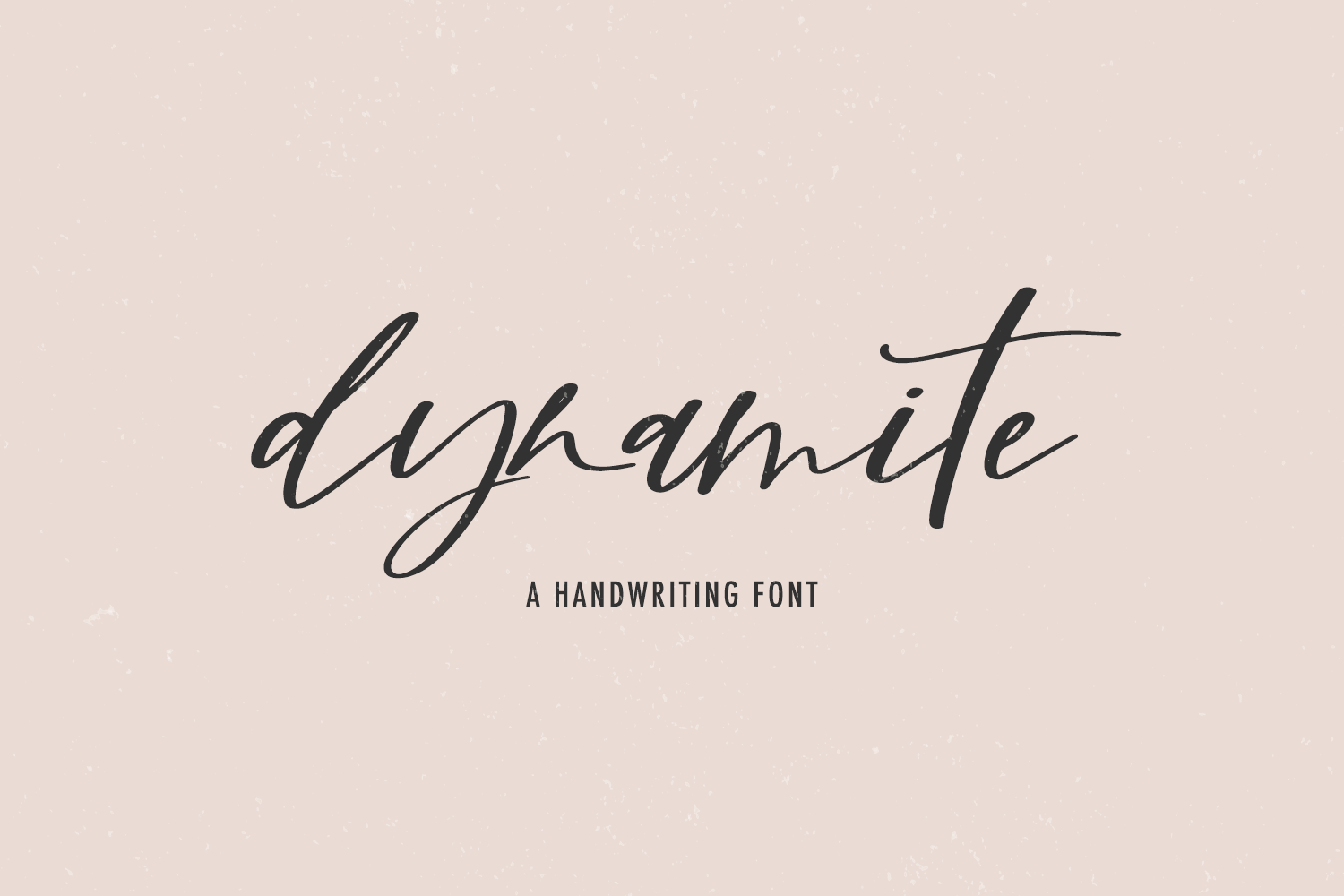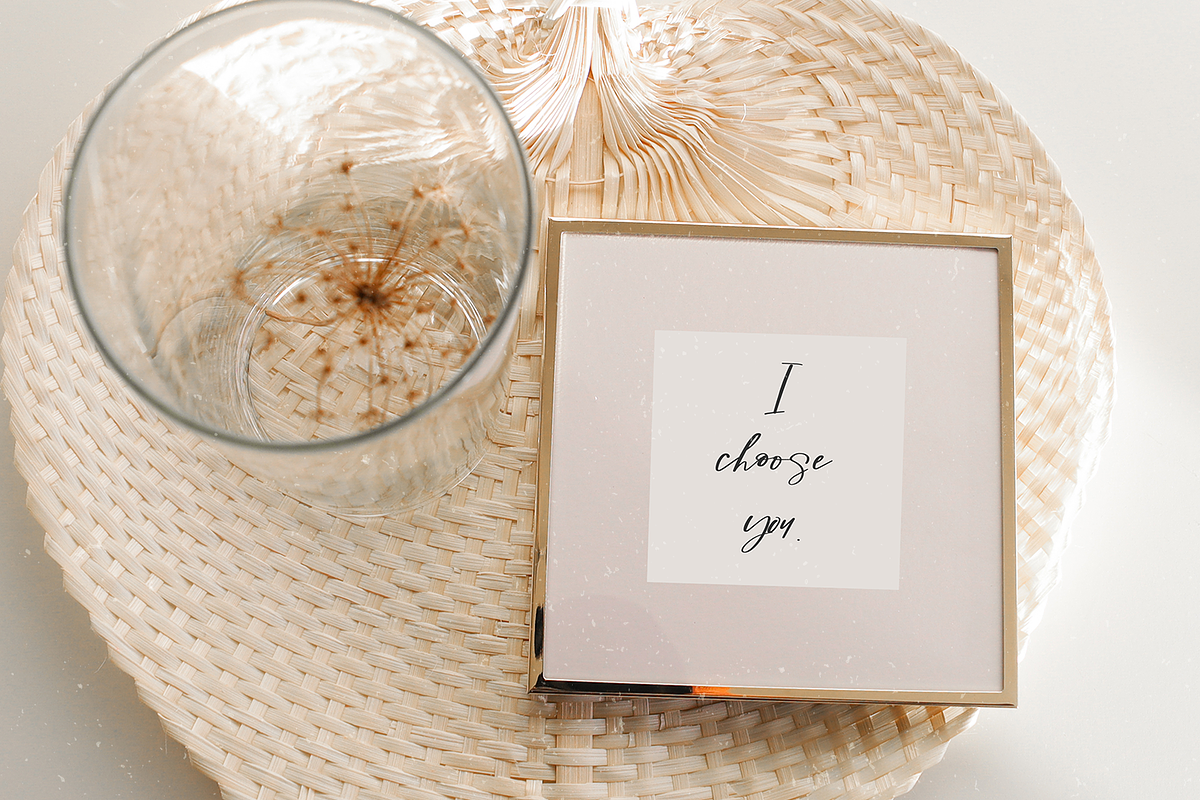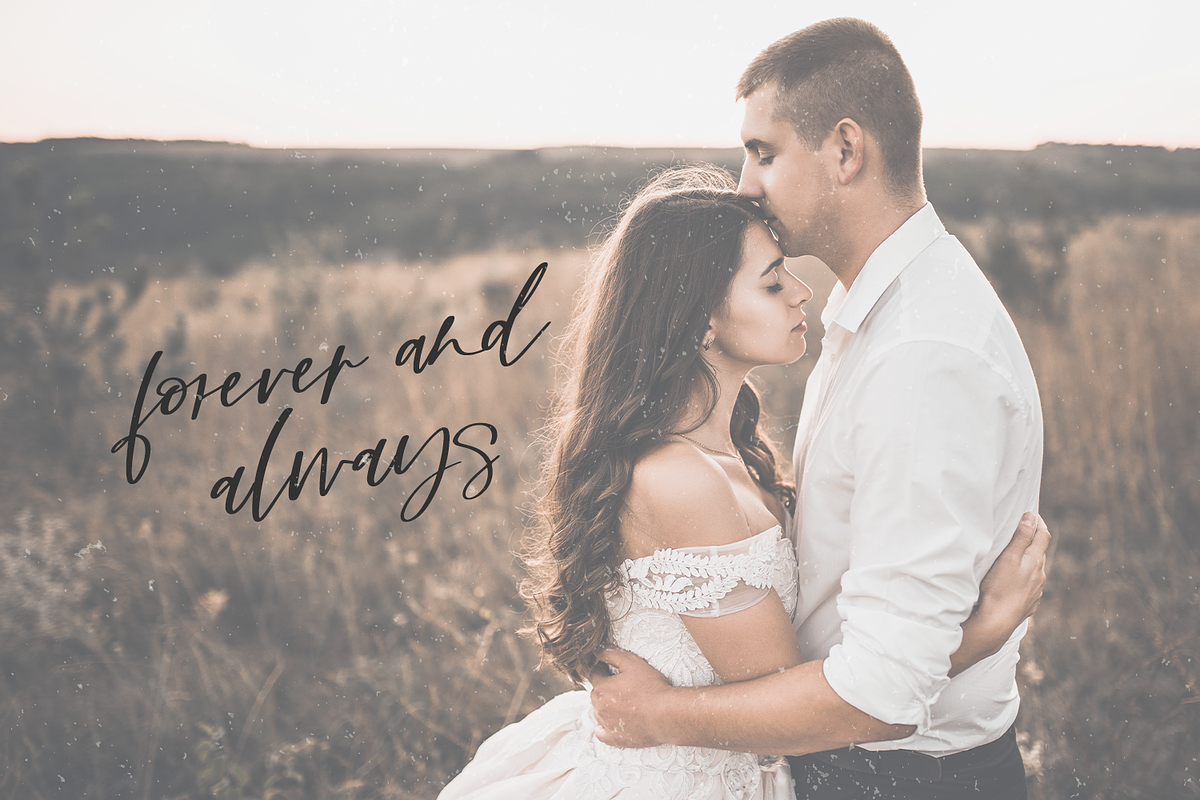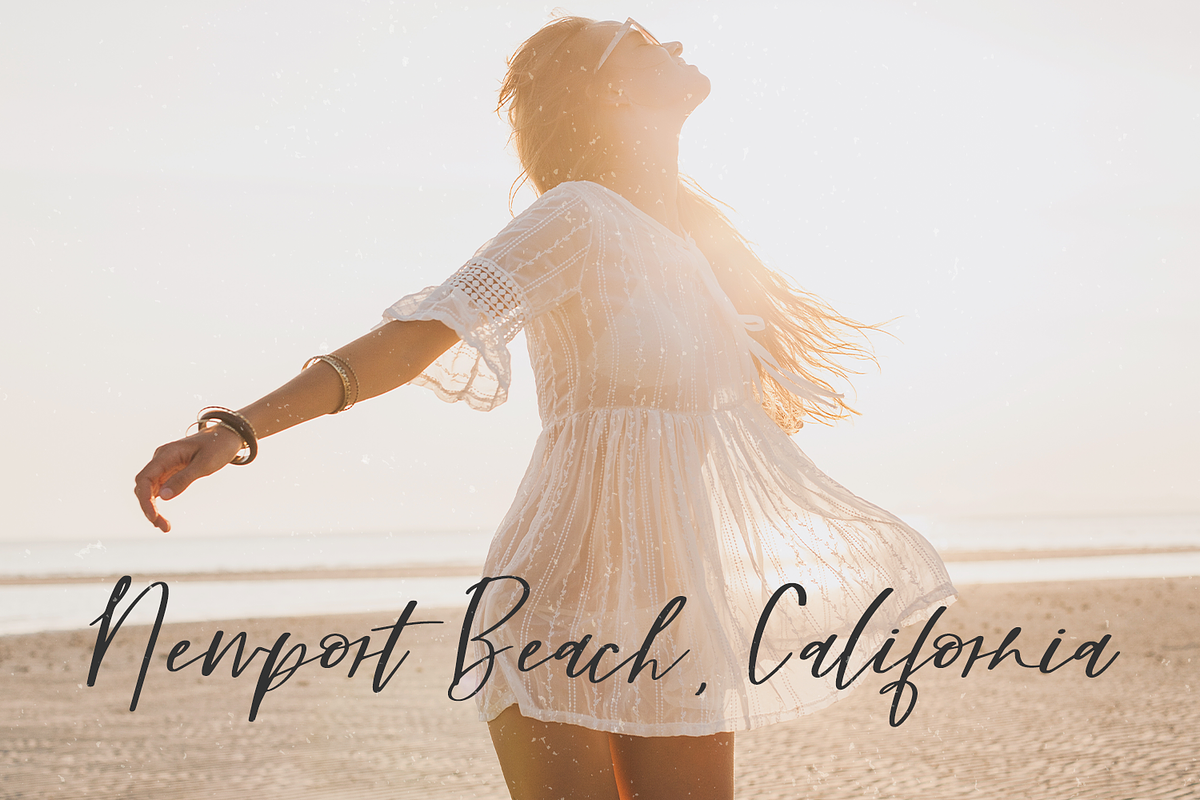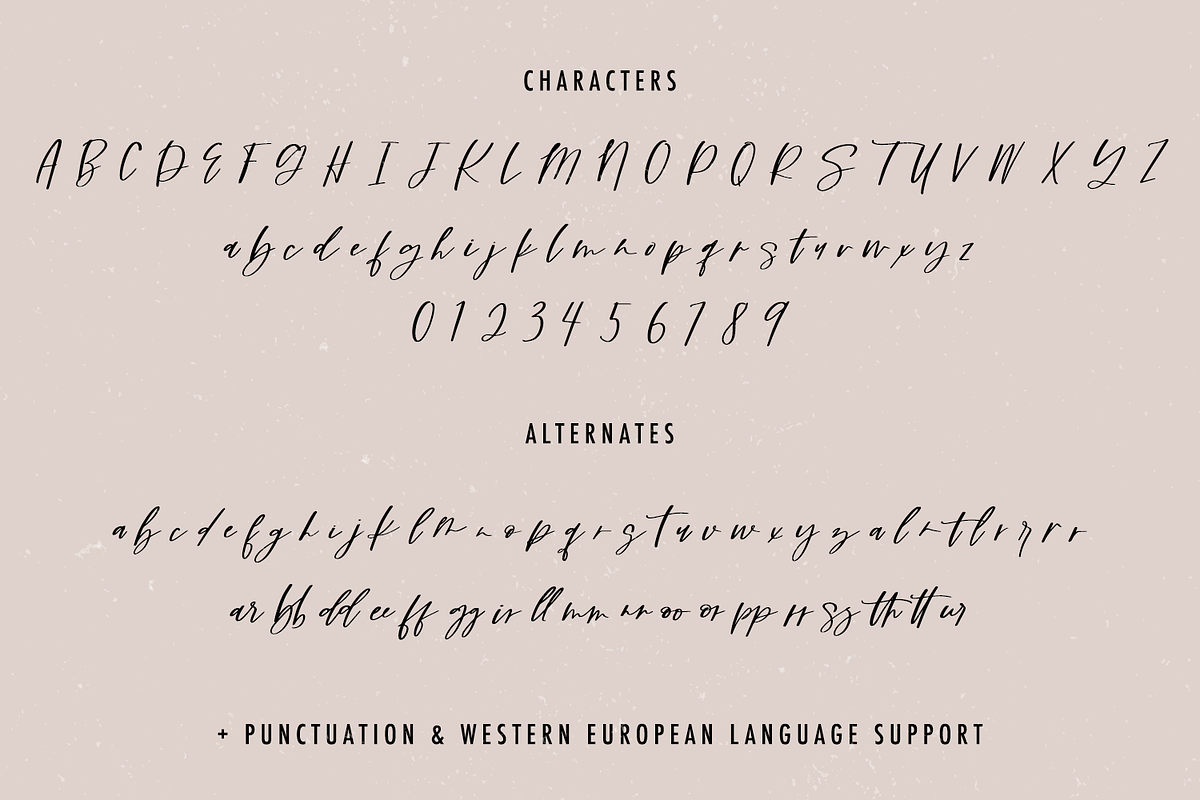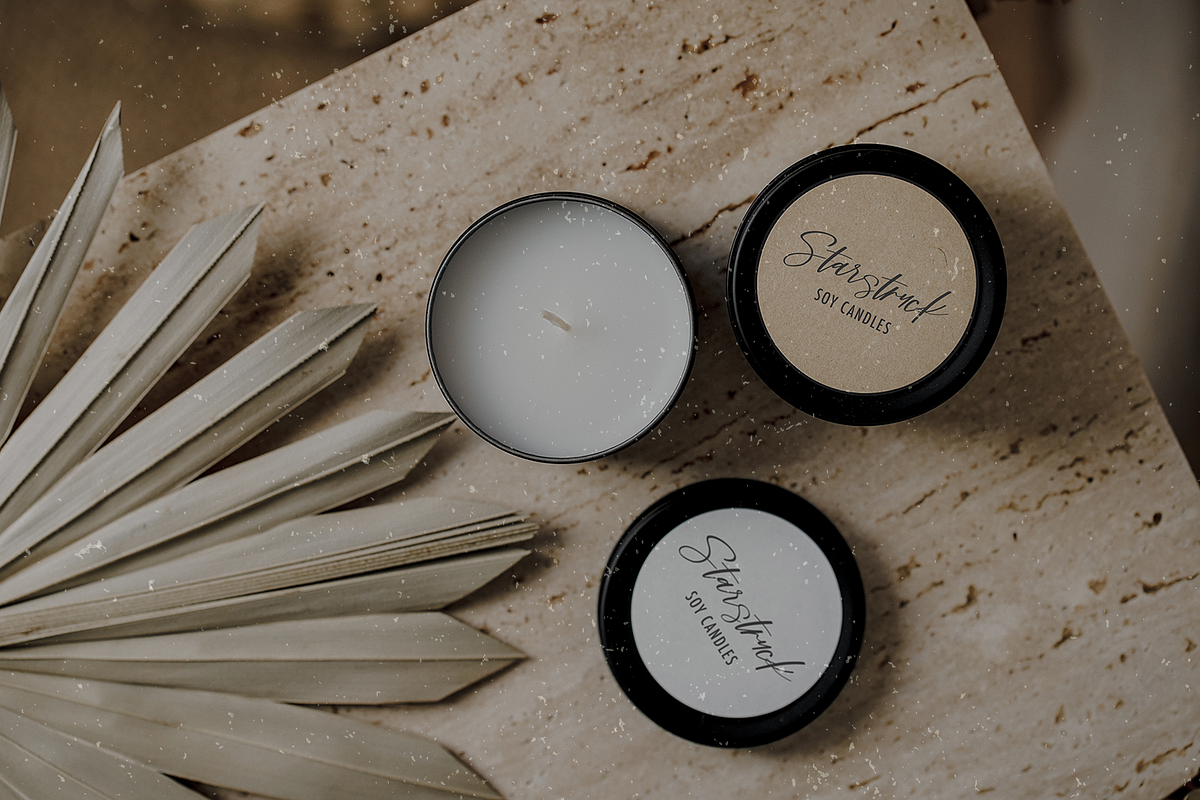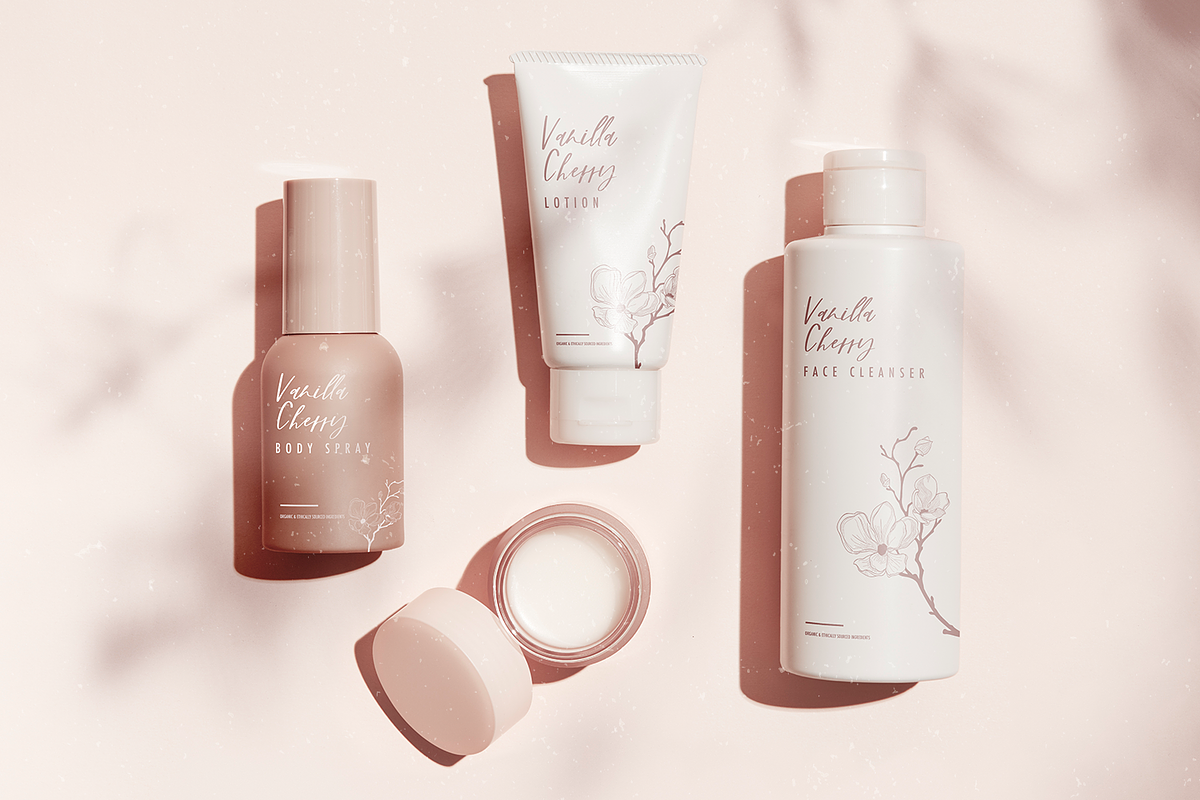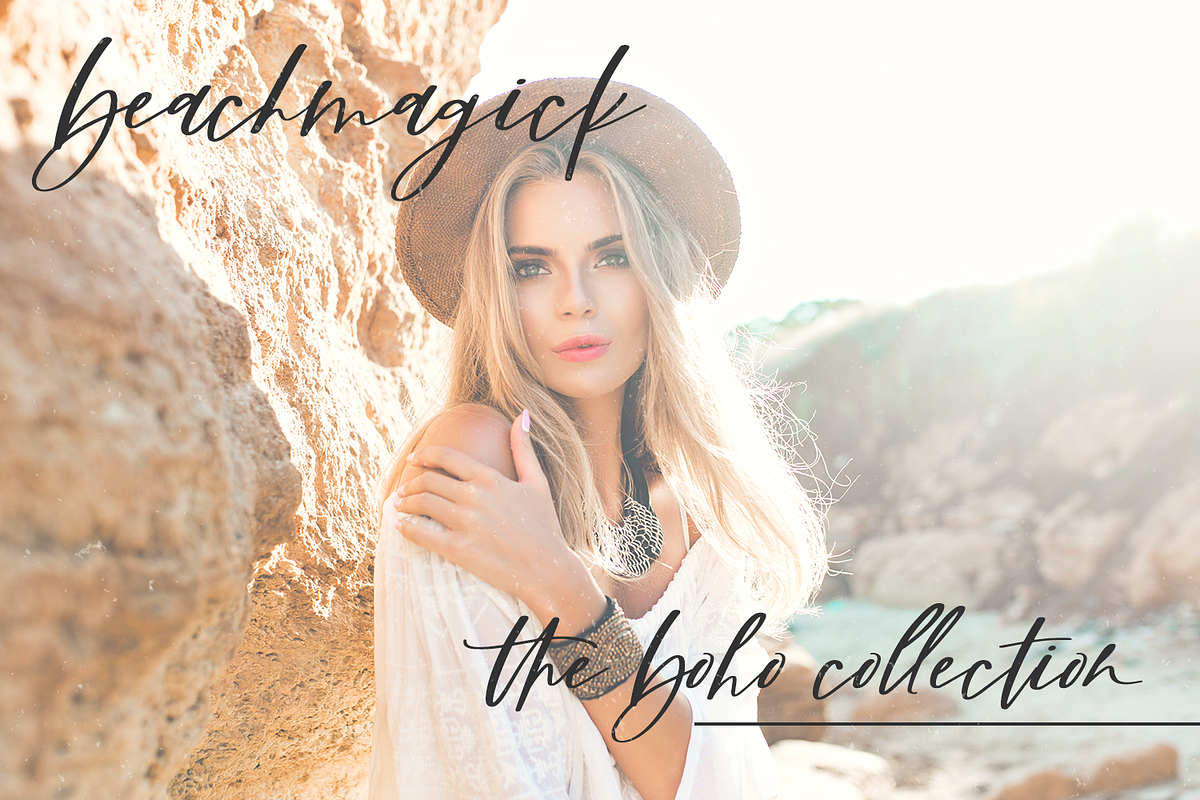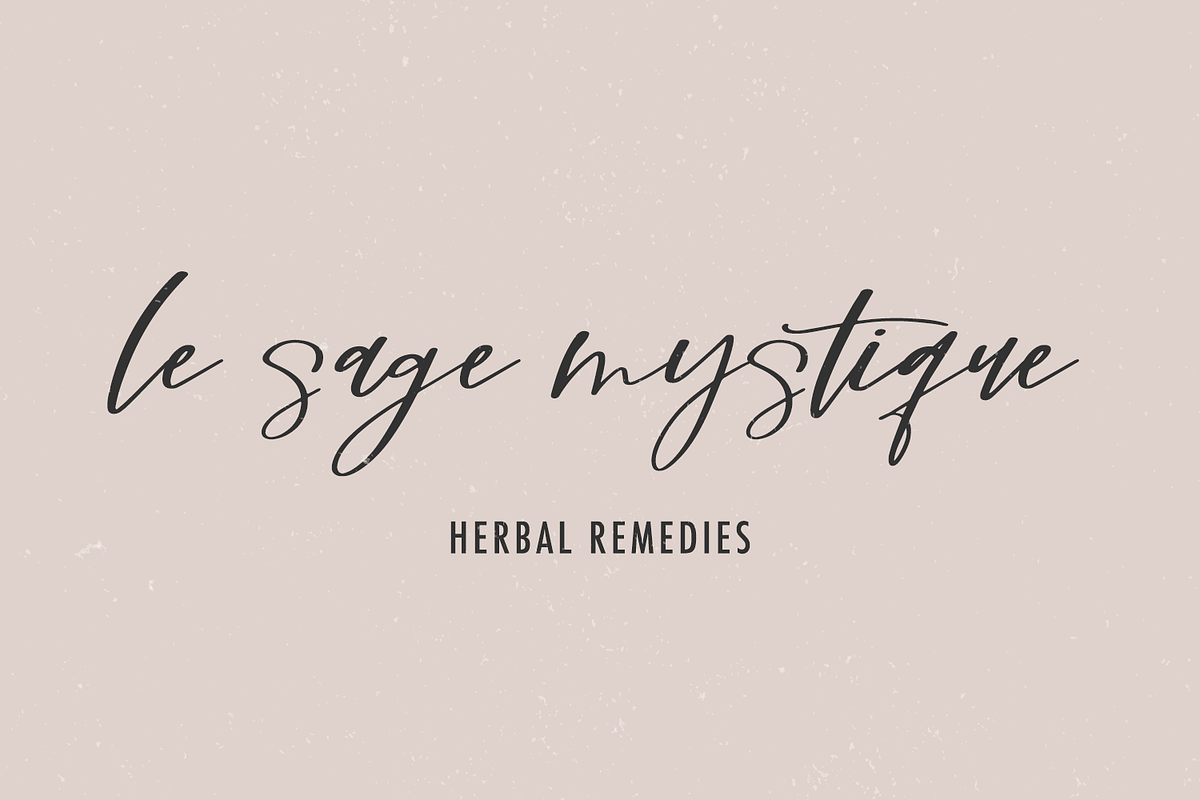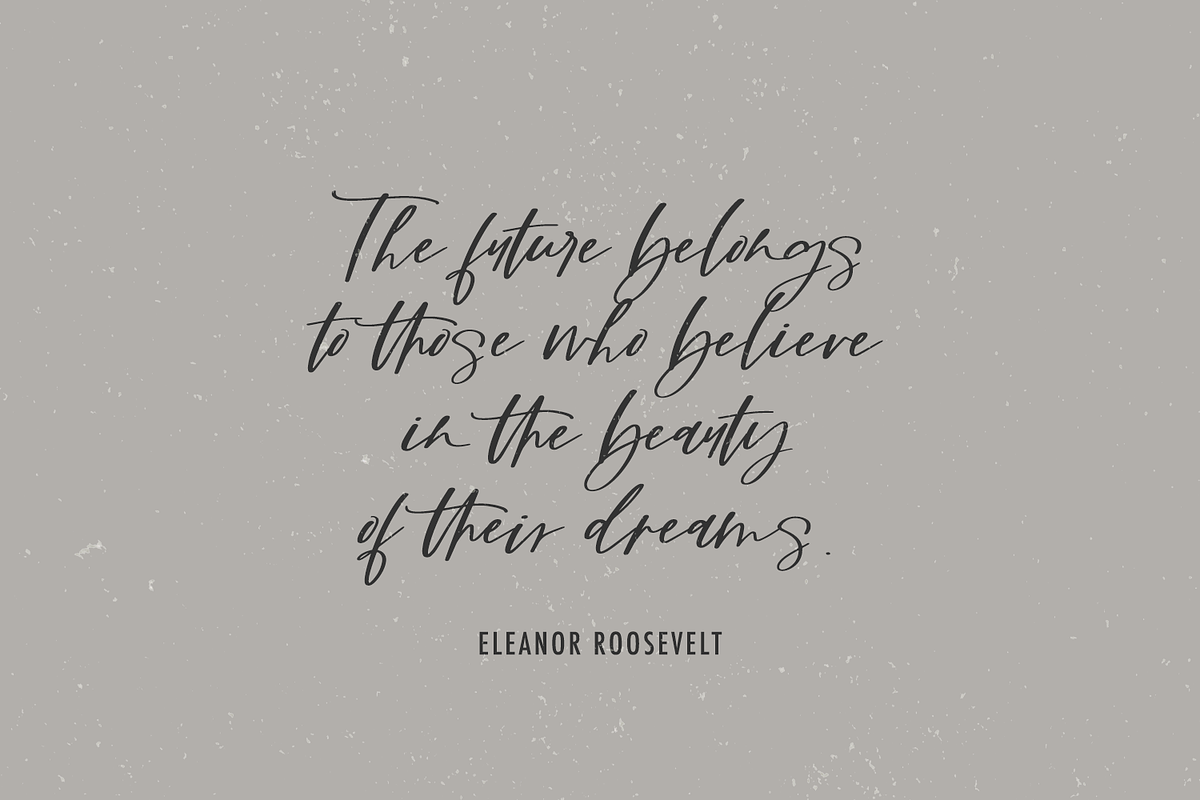
Introducing Dynamite, a casual, modern calligraphy script.
Dynamite is best for:
- modern, chic farmhouse decor and crafts
- logos + branding
- website design + website accents, blog design
- clean print design, like magazines + flyers
- header elements that need handwritten touch
- quote graphics for social media
- feminine graphic tee shirt design & other apparel
Dynamite includes:
- full upper + lowercase characters
- numbers + punctuation
- Western European Language Support
- 35 alternate lowercase characters
- 18 ligatures - ar, bb, dd, ee, ff, gg, ir, ll, mm, nn, oo, or, pp, rr, ss, th, tt, ur